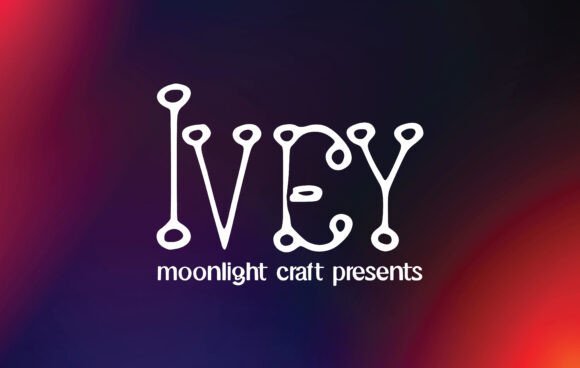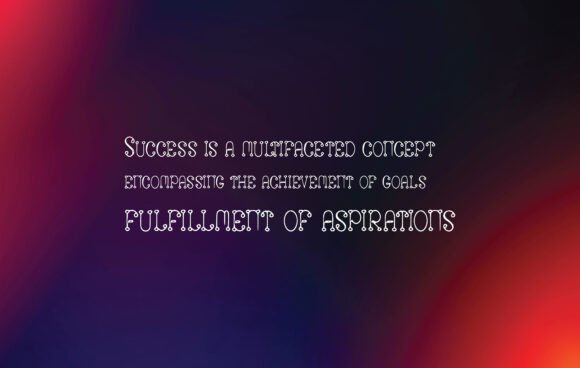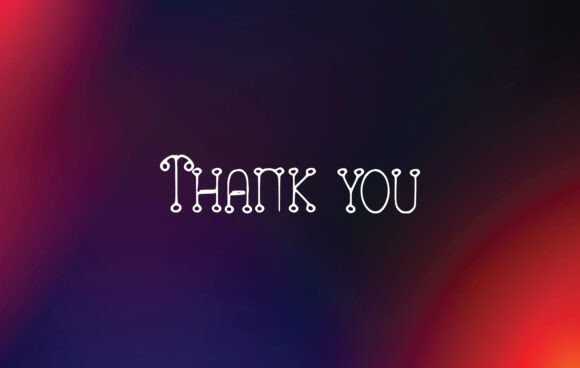
Unleashing Your Creativity with the Ivey Font
Do you remember that moment when a spark of creativity hits you, and you just know you have to bring your idea to life? Maybe it’s a concept for a new logo, a quote that resonates with you, or a branding idea that screams ‘me.’ Whatever it is, it’s that moment of pure inspiration that drives us as designers to push the boundaries of our creativity.
Enter the Ivey Font, a beautiful and elegant handwritten font that’s tailor-made for unleashing your creative ideas. With its unique flair and character, Ivey Font is perfect for crafting eye-catching logos, branding, and quotes that truly stand out. As a designer, you know how valuable it is to have the right tools at your disposal to bring your vision to life. And that’s exactly what the Ivey Font offers – a chance to take your creative ideas to new heights.
Ivey Font Key Features
- Unique Characteristics: Ivey Font is designed to be highly legible and readable, with a unique blend of modern and classic elements that make it suitable for a wide range of design applications, including body text, headlines, and titles.
- Font Weight and Style: Ivey Font is available in a range of font weights, from Light to Extra Bold, and styles, including Regular, Italic, Bold, and Bold Italic, allowing designers to achieve the perfect balance of legibility and visual impact.
- Scalability: Ivey Font is designed to be highly scalable, meaning it looks great at both small and large sizes, making it an excellent choice for a wide range of design applications, from small business cards to large-scale signage and branding.
Ivey Font Review
Overall, Ivey Font has some unique characteristics that make it stand out in certain situations. ✨ One of its most notable features is the elegant, hand-drawn feel it brings to digital projects. This makes it particularly well-suited for high-end fashion, luxury brands, or anything that requires a touch of sophistication.
Additionally, Ivey Font is quite versatile, with a wide range of weights and styles to choose from. This allows designers to create a cohesive look across different mediums, from print to web. ✨ The font’s subtle flourishes and curved lines also lend themselves well to cursive or script-like applications.
- ⚠️ Limited language support: Ivey Font may not be optimized for languages that require a lot of diacritical marks or special characters.
- ⚠️ Some characters may be difficult to read at small font sizes: While Ivey Font looks great at larger sizes, it can become less legible when scaled down.
- ⚠️ May not be suitable for body text: Due to its ornate nature, Ivey Font is best used for headlines, titles, or other decorative elements.
In conclusion, Ivey Font is a beautiful and elegant font that excels in specific contexts. While it has some limitations, it can be a valuable addition to a designer’s toolkit when used thoughtfully and creatively.